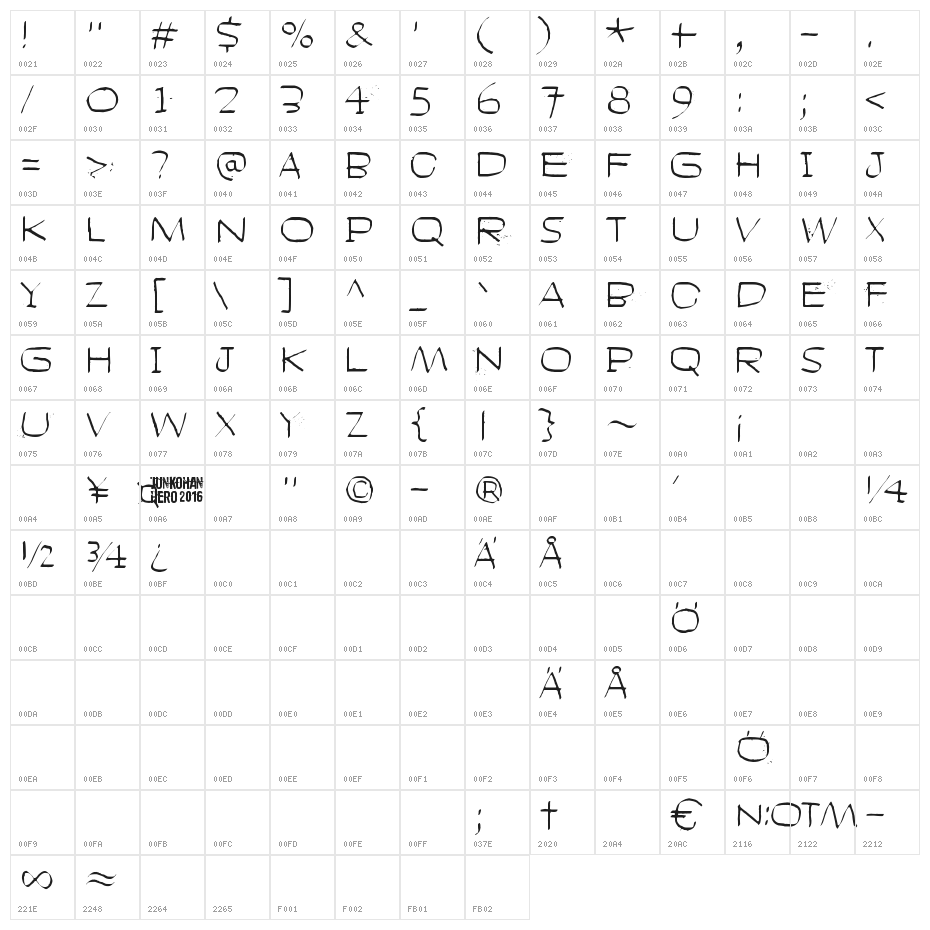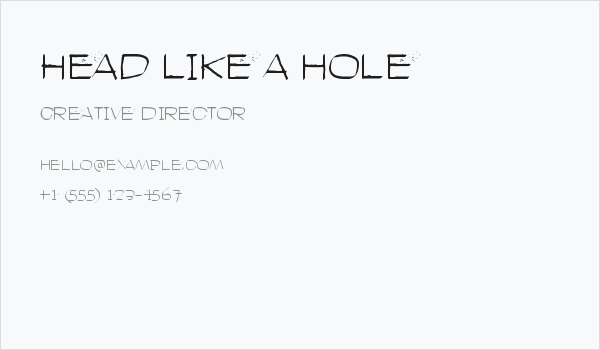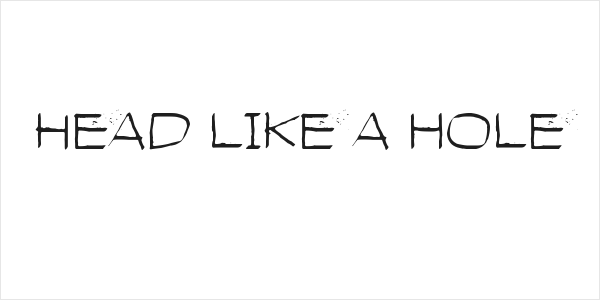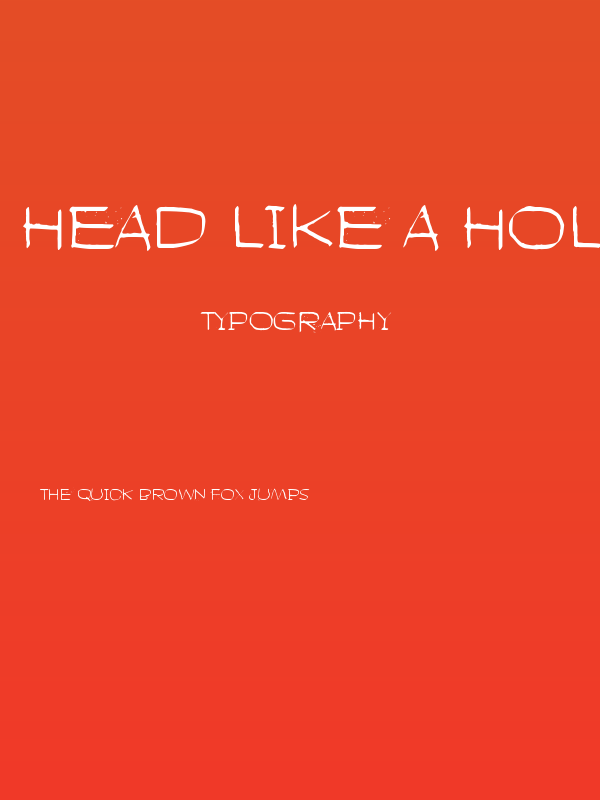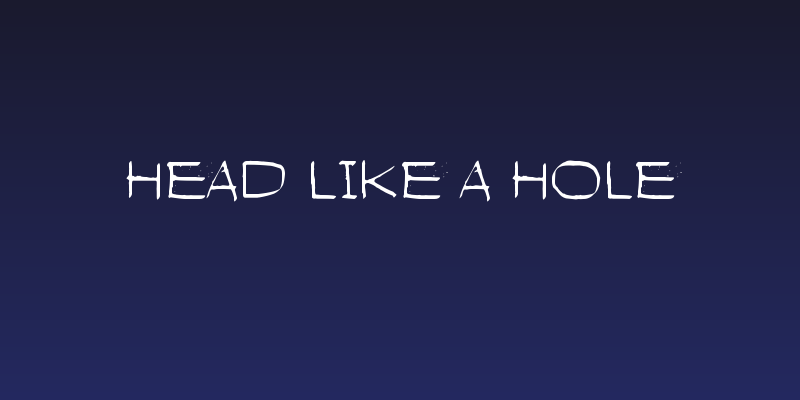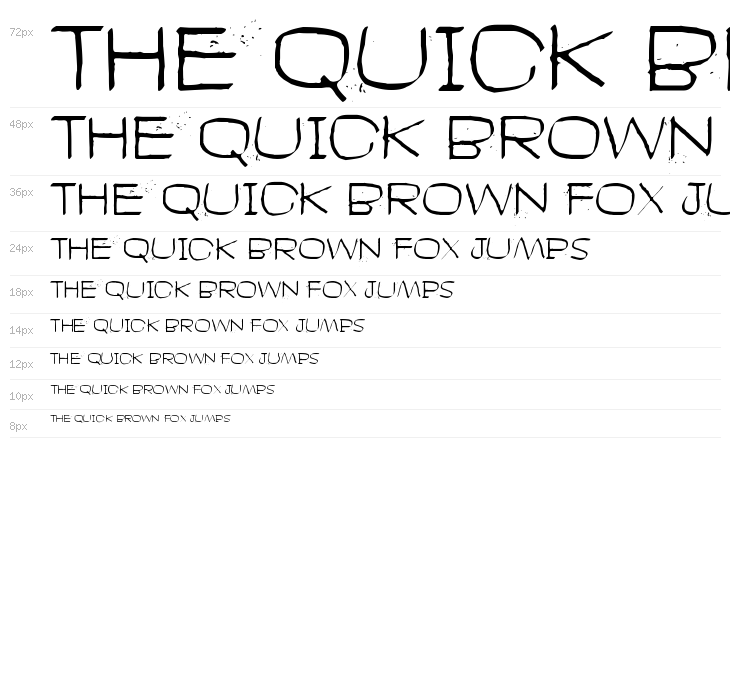
Head like a hole Font
Head like a hole Description
This font features a distressed and grungy style, characterized by uneven lines and a hand-drawn appearance. The letters have a rough texture, giving them a raw and edgy look. The uppercase and lowercase alphabets maintain a consistent style, with angular and slightly irregular shapes. Numbers and special characters follow the same aesthetic, adding to the overall cohesive design. The font's unique appearance makes it stand out, ideal for projects that require a bold and unconventional look.
| Overall Style | Grunge, Artistic |
| Use Case | Headlines, Artistic projects, Posters |
| Proposed Projects | Ideal for album covers, posters, and designs that require a raw, artistic touch. |